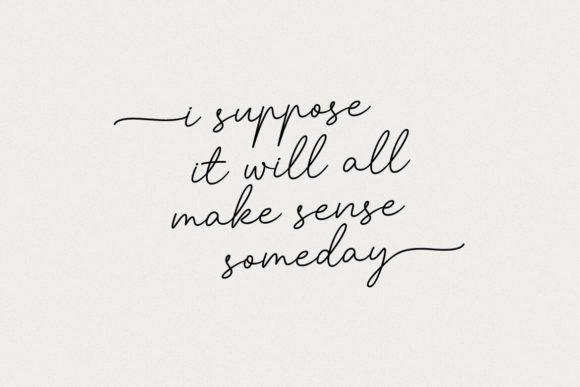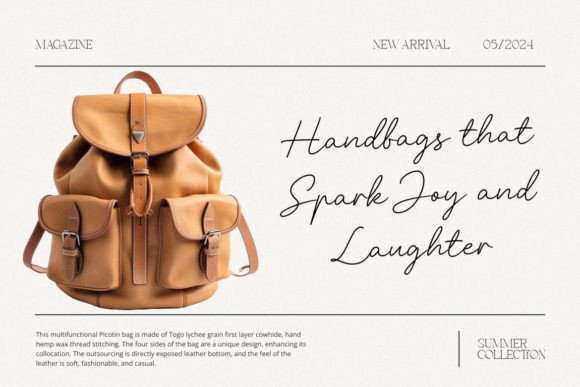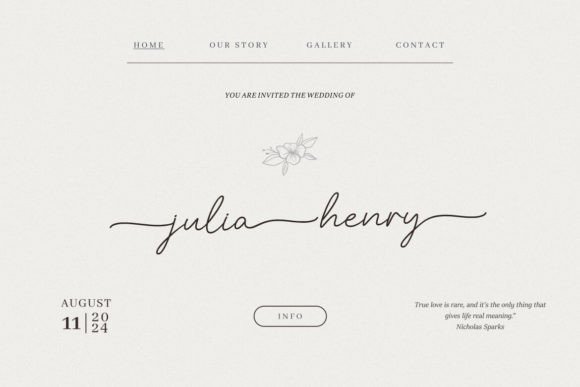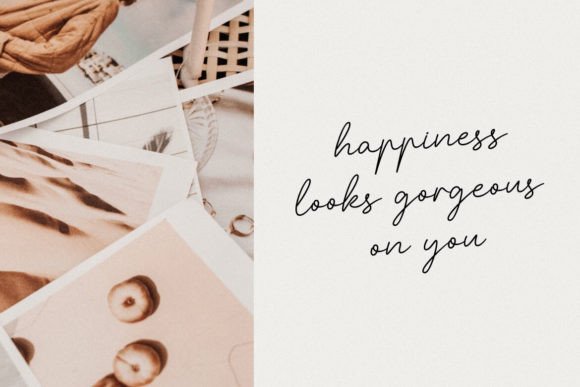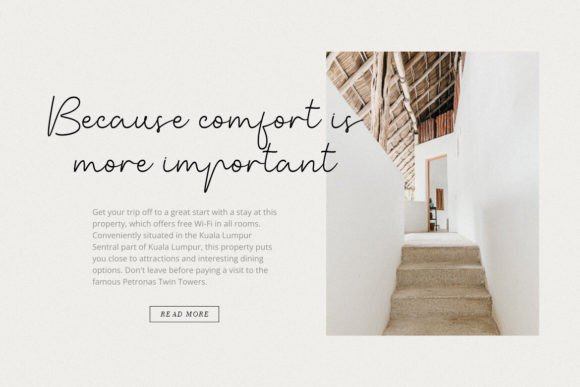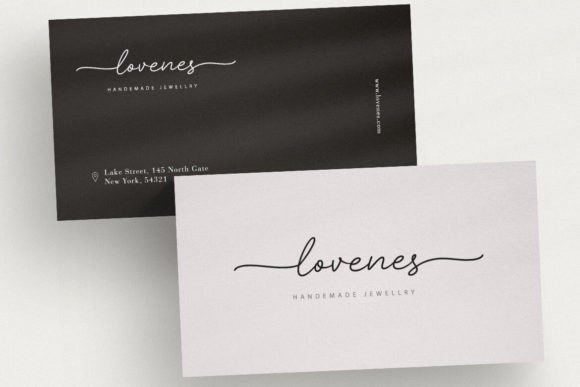
Introducing Elontias Font: The Modern, Feminine Handwritten Font for Your Creative Projects
Are you a designer or crafter looking for a font that exudes modernity, casual elegance, and femininity? Look no further than Elontias Font! This beautiful, handwritten font is perfect for a wide range of creative projects, from quotes and menus to invitations and business cards. In this article, we’ll explore the features and benefits of Elontias Font, and show you how it can elevate your designs to the next level.
What is Elontias Font?
Elontias Font is a modern, casually and feminine handwritten font that is designed to add a touch of elegance and sophistication to your projects. With its flowing lines and delicate curves, this font is perfect for designers and crafters who want to create beautiful, eye-catching designs that stand out from the crowd. Whether you’re working on a personal project or a client’s brief, Elontias Font is a versatile and reliable choice.
Features of Elontias Font
So, what makes Elontias Font so special? Here are just a few of its key features:
- Full uppercase and lowercase letters: Elontias Font comes with a complete set of uppercase and lowercase letters, making it perfect for a wide range of projects.
- Numbers and punctuation: The font also includes numbers and punctuation marks, so you can create complex designs with ease.
- Ligature characters: Elontias Font features ligature characters, which help to create a more natural, handwritten look.
- Extensive language support: With support for multiple languages, Elontias Font is a great choice for designers and crafters who work with international clients or want to create designs for a global audience.
Projects Suitable for Elontias Font
So, what kinds of projects are suitable for Elontias Font? The answer is: many! Here are just a few ideas to get you started:
- Quotes and posters: Elontias Font is perfect for creating inspirational quotes and posters that will grab attention and inspire your audience.
- Menus and flyers: Add a touch of elegance to your menus and flyers with Elontias Font, perfect for restaurants, cafes, and other businesses.
- Invitations and greeting cards: Create beautiful, personalized invitations and greeting cards for special occasions like weddings, birthdays, and holidays.
- Business cards and stationery: Use Elontias Font to create professional-looking business cards and stationery that will help you stand out from the competition.
- Clothing and accessories: Add a touch of femininity to your clothing and accessories with Elontias Font, perfect for fashion designers and crafters.
Why Choose Elontias Font?
So, why should you choose Elontias Font for your next project? Here are just a few reasons:
- Unique and eye-catching: Elontias Font is a unique and eye-catching font that will help your designs stand out from the crowd.
- Versatile and flexible: With its wide range of characters and language support, Elontias Font is a versatile and flexible font that can be used for many different projects.
- Elegant and sophisticated: Elontias Font exudes elegance and sophistication, making it perfect for designers and crafters who want to create beautiful, high-end designs.
| Font Name | Elontias Font |
| Author | HansCo |
In conclusion, Elontias Font is a modern, casually and feminine handwritten font that is perfect for a wide range of creative projects. With its flowing lines, delicate curves, and extensive language support, this font is a versatile and reliable choice for designers and crafters. Whether you’re working on a personal project or a client’s brief, Elontias Font is a great choice for anyone who wants to create beautiful, eye-catching designs that stand out from the crowd.